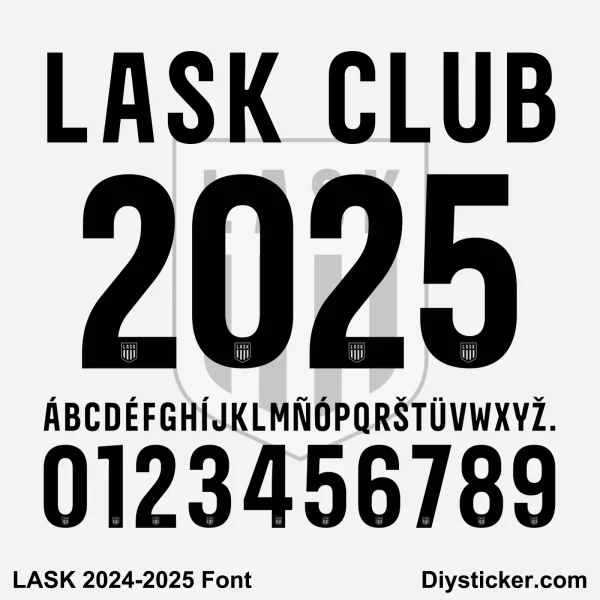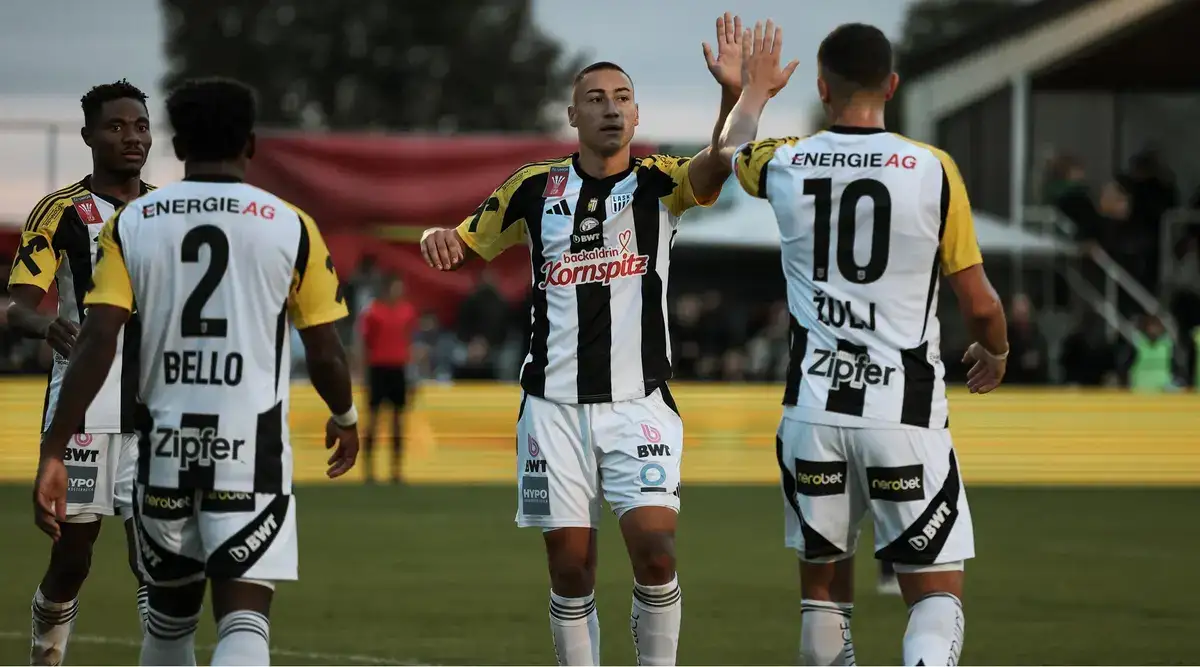
Get the Professional LASK 2024-2025 Font for Your Designs
The LASK 2024-2025 Font represents a perfect blend of modern athletic typography and club identity. As LASK Linz continues to make its mark in the Austrian Bundesliga and European competitions, their visual identity has become a favorite among kit collectors and graphic designers. This font package allows you to recreate the exact look used by the professionals on the pitch.
The Aesthetics of LASK Linz 2024-25 Typography
The LASK Linz official shirt numbers font features a tall, condensed sans-serif structure designed for high visibility. The clean lines ensure that player names and numbers are easily readable even from the furthest stadium seats or on high-definition broadcasts. One of the most distinctive features of this season’s typeface is the integrated club crest at the base of every digit, a detail we have meticulously preserved in our vector assets.
Ideal for Custom Kits and Fan Merchandise
Using a LASK Linz football font TTF for jersey printing makes it easier than ever to create personalized gifts. If you are looking to restore a match-worn shirt or want to design a custom “Black and White” fan banner, these files provide the authentic foundation you need. The inclusion of special characters and accents ensures that you can accurately spell any player name from the international roster.
See the LASK 2024-2025 Font on the Pitch
“Our digital recreation perfectly matches the official numbering used by players like Robert Žulj, ensuring your custom projects have 100% on-field authenticity.”
Maximize Your Creative Potential